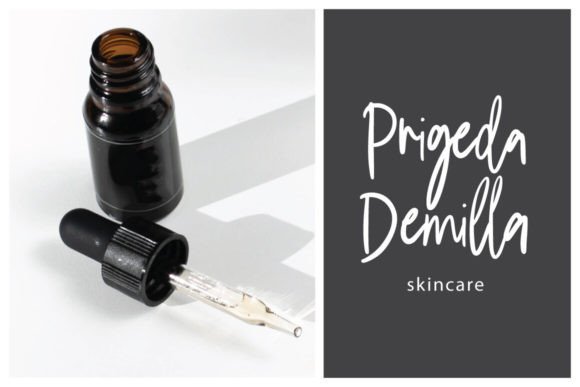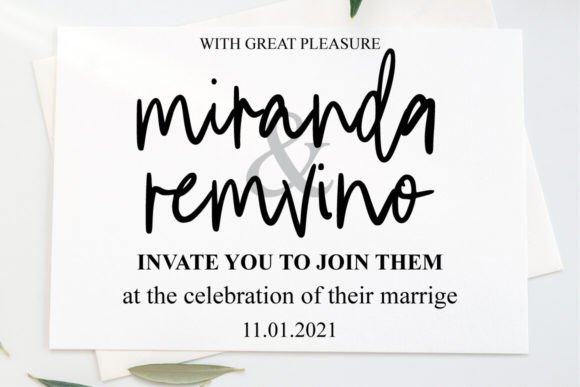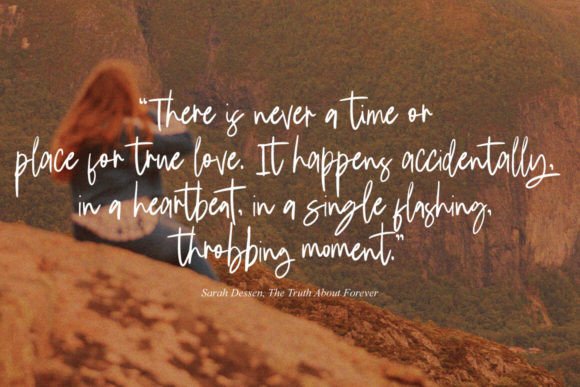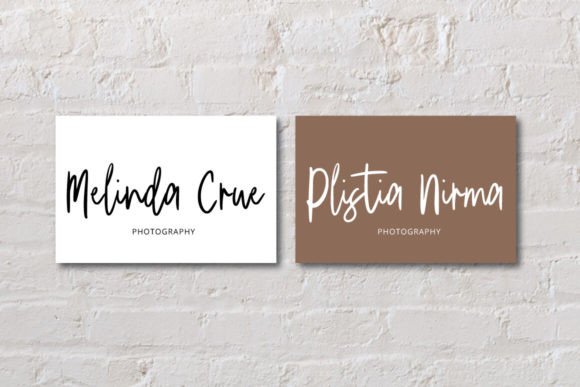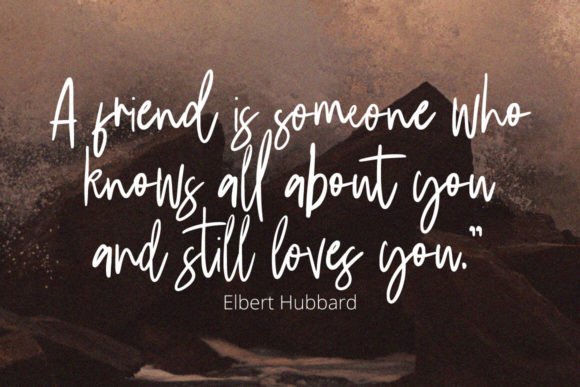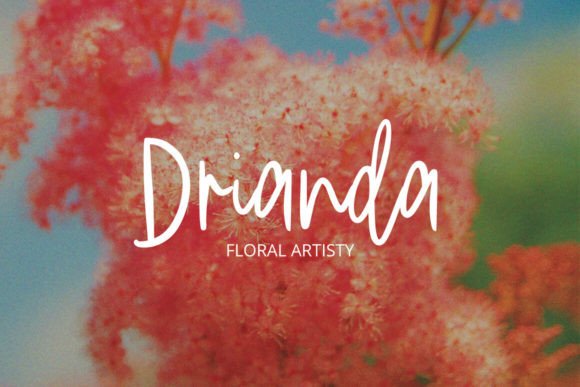
Introducing Badesra Font: A Stunning Handmade Signature Style Font
Are you looking for a unique and creative font to elevate your designs? Look no further than Badesra Font, a beautiful handmade signature style font that is perfect for a variety of design projects. With its decorative characters and dancing baseline, Badesra Font is sure to add a touch of elegance and sophistication to any design.
What Makes Badesra Font So Special?
Badesra Font is a one-of-a-kind font that features a stunning handmade signature style. Its decorative characters and dancing baseline make it perfect for use on invitations, greeting cards, branding materials, business cards, quotes, posters, and more. The font comes with 250+ glyphs, including alternative characters that can be accessed using Open Type features such as Swash, Stylistic Sets, Stylistic Alternates, and Ligature.
Open Type Features
PUA Unicode: Easy Access to Alternate Characters
Badesra Font has been given PUA unicode, which means that all the alternate characters can be easily accessed in full by crafters and designers. This makes it easy to use the font in a variety of design projects, without the need for complicated software or technical expertise.
Badesra Font is perfect for designers and crafters who are looking for a unique and creative font to add to their designs. The font is easy to use and comes with a range of features that make it versatile and customizable. Whether you’re creating invitations, greeting cards, or branding materials, Badesra Font is sure to elevate your designs and add a touch of elegance and sophistication.
Key Features of Badesra Font
- Handmade signature style font
- Decorative characters and dancing baseline
- 250+ glyphs, including alternative characters
- Open Type features, including Swash, Stylistic Sets, Stylistic Alternates, and Ligature
- PUA unicode for easy access to alternate characters
Tips for Using Badesra Font
Here are a few tips for using Badesra Font in your designs:
- Use Badesra Font on invitations and greeting cards to add a touch of elegance and sophistication
- Experiment with different Open Type features to create unique and customized designs
- Pair Badesra Font with other fonts to create a striking contrast
- Use Badesra Font on branding materials, such as business cards and brochures, to add a touch of personality and style
Badesra Font is a stunning handmade signature style font that is perfect for designers and crafters who are looking for a unique and creative way to elevate their designs. With its decorative characters, dancing baseline, and range of Open Type features, Badesra Font is sure to add a touch of elegance and sophistication to any design. Whether you’re creating invitations, greeting cards, or branding materials, Badesra Font is a great choice.